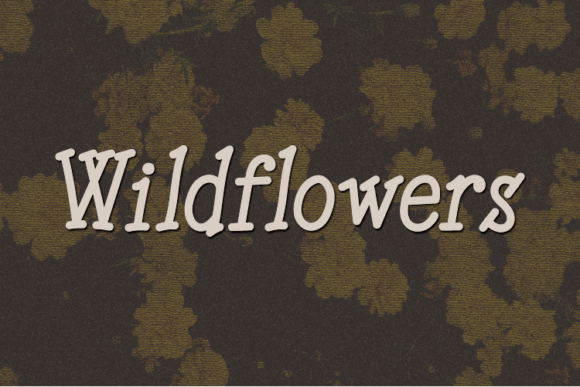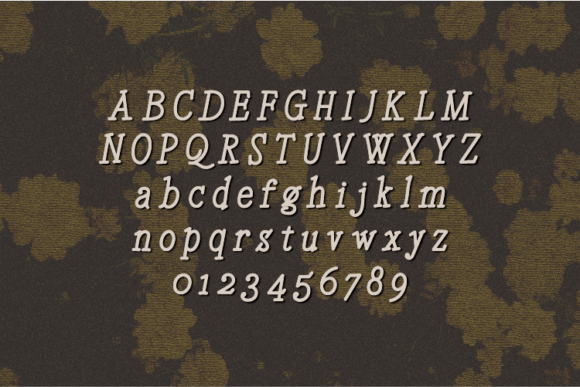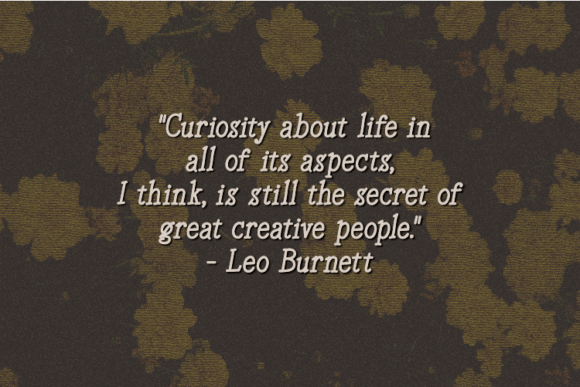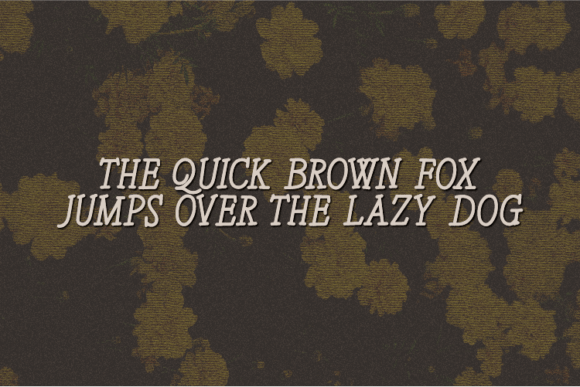
Wildflowers Font
About Wildflowers Font
“Wildflowers” is a delightful and relaxed handwritten font that brings a touch of playfulness to your creative projects. Whether you’re applying it to crafts, digital design, presentations, or crafting heartfelt greeting cards, this font possesses the versatility to become your cherished go-to choice, suitable for any occasion!
“Wildflowers” font embodies a sense of whimsy and informality, making it a perfect fit for various creative endeavors. Its handwritten style imparts a personal and approachable feel to your work, ensuring that it stands out in a world filled with formal fonts. Whether you’re working on crafting handmade greeting cards, adding a unique touch to your digital designs, or even enhancing the visual appeal of presentations, this font’s laid-back charm brings a delightful character to your projects.
One of the standout qualities of “Wildflowers” font is its innate fun-loving nature. Its carefree strokes and playful curves make it an excellent choice for projects where you want to convey a sense of joy and light-heartedness. The font’s relaxed style lends itself well to creative and artistic endeavors, making it an ideal choice for crafting visually engaging and memorable content.
Furthermore, “Wildflowers” font is incredibly versatile. Its adaptability ensures that it can seamlessly integrate into a wide range of design contexts. Whether you’re creating charming crafts, vibrant digital designs, or heartfelt greeting cards, this font’s cheerful disposition adds a touch of exuberance to your creations, making them all the more engaging and enjoyable.
In summary, “Wildflowers” font is a delightful and laid-back handwritten typeface that infuses your projects with a sense of playfulness and charm. Its versatility makes it a valuable asset for a variety of creative applications, from crafting to digital design and beyond. No matter the occasion, “Wildflowers” font is ready to become your favorite go-to choice for adding a touch of fun and personality to your work.